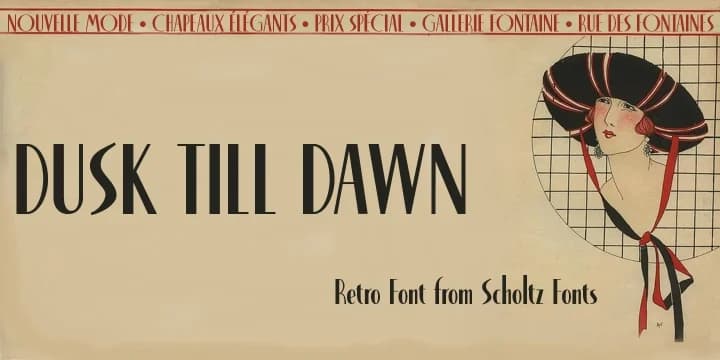
Picture yourself working on an Art Deco wedding invitation suite, vintage movie posters, or upscale beauty product packaging. That's where Dusk til Dawn by Scholtz Fonts shines. This decorative typeface captures that between-the-wars elegance you see in 1920s and early 1930s design, but it's been thoughtfully refined with bold downstrokes and carefully modified proportions that give it real presence on the page.
Scholtz built this font on lessons learned from his earlier work, tightening the width of certain capitals and reshaping the lowercase entirely. The result comes in two weights tailored to different jobs. The Regular style adheres to Art Deco convention with its small x-height and extended ascenders, making it ideal for headers on event programs, speakeasy menus, and theatrical posters. Book weight raises the x-height and opens the letterforms slightly wider, so it reads cleanly even in smaller point sizes and works for longer runs of text. Both versions include decorative ligatures and uppercase alternates that add visual richness without overwhelming the layout or feeling forced.
Dusk til Dawn Font is a decorative font that shines as a display or heading face. Pair it with a clean sans-serif or serif font for body text β the contrast creates a clear hierarchy while the two styles stay balanced and easy to read.
Dusk til Dawn Font